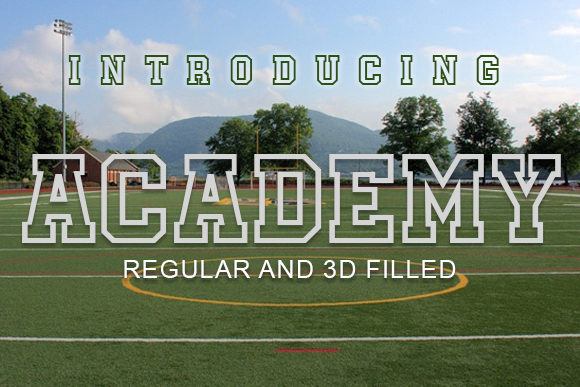
Introducing Academy Font, the perfect addition to any font library! Created by vladimirnikolic, this strong and assertive outlined display font is sure to catch your eye.
If you're looking for the Best Font For Banner Ads, look no further than Academy. Its bold and commanding presence is ideal for making a statement and leaving a lasting impression. Whether you're advertising a new product or promoting your brand, Academy Font is the perfect choice.
But Academy isn't just for advertising. This versatile font can be used in a variety of settings, from website headers to social media graphics. Its clean lines and modern aesthetic make it an excellent choice for any project that requires a bold and striking font.
One of the best things about Academy Font is its potential to bring your creations to the next level. With its strong and assertive style, Academy has the power to transform any design into a masterpiece. Whether you're a graphic designer or a small business owner, this font is sure to impress.
But don't just take our word for it. Try Academy Font for yourself and see the difference it can make in your projects. With its eye-catching style and versatile nature, this font is the perfect choice for anyone looking to stand out from the crowd.